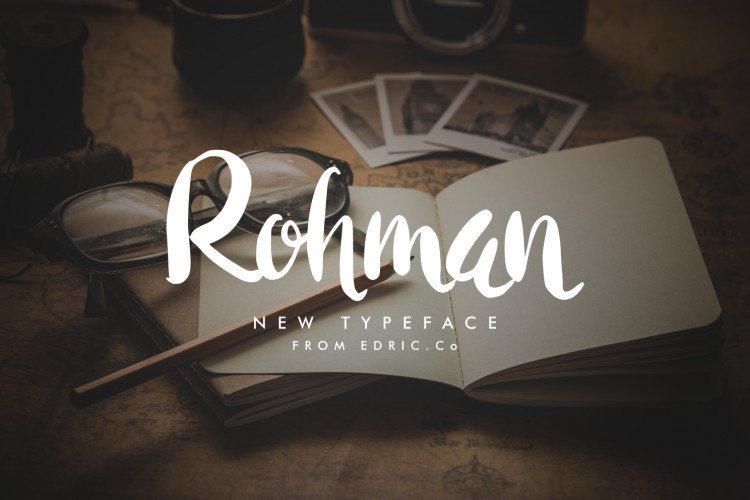
Rohman Brush Font
Say hello to Rohman Font. This is another foray into brush script type design that enjoy producing so much. It is designed and shared by EdricStudio. Rohman Brush Font Calligraphy Lettering This is a new kind of Lettering font It will great for poster, quote, social media, flyer signage etc. The original theme was vintage but it can also be used for modern industry something like photographer, make up artist, barber, salon etcAbsolutely it will awesome for a wedding logo, invitation, paper, letter etc.